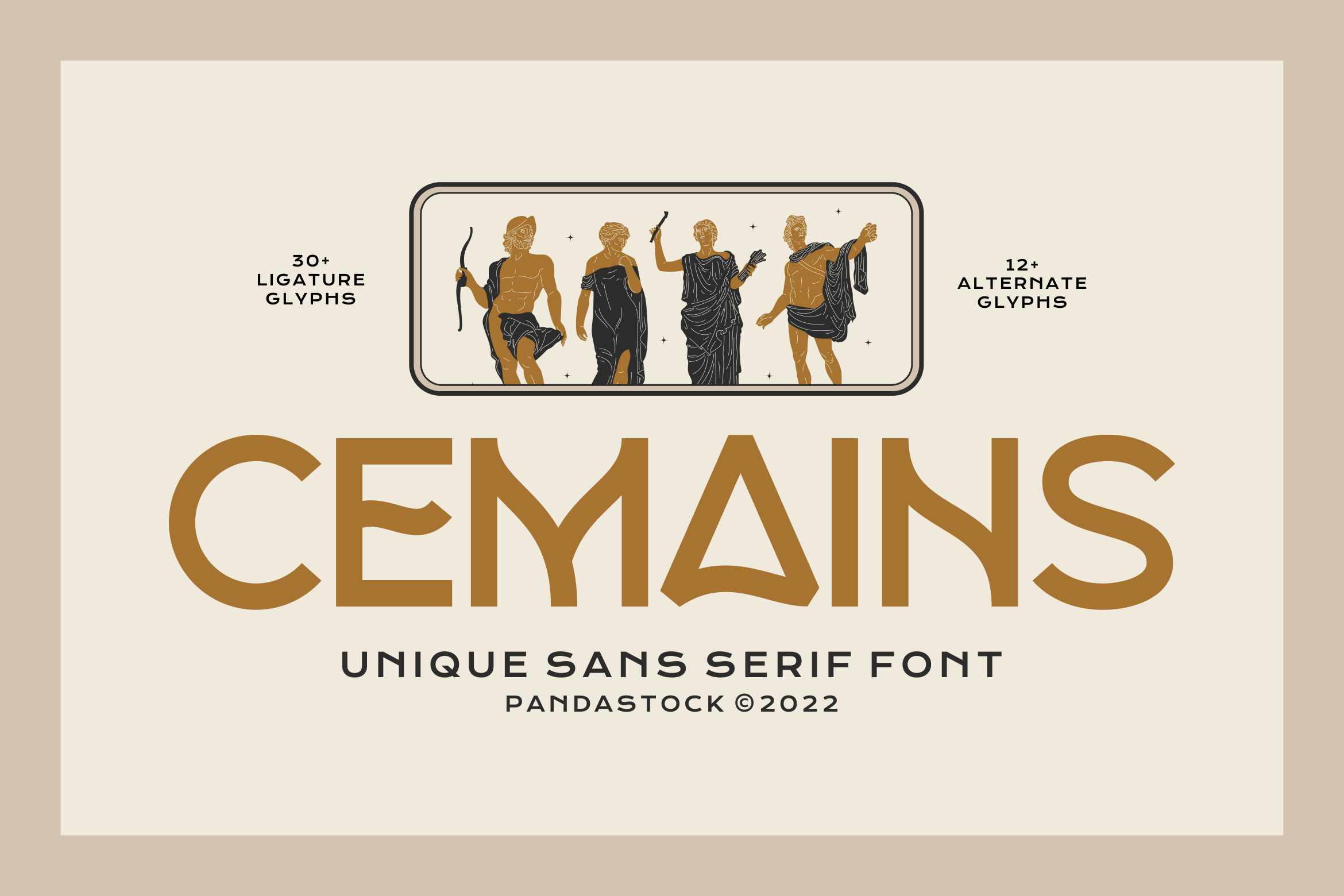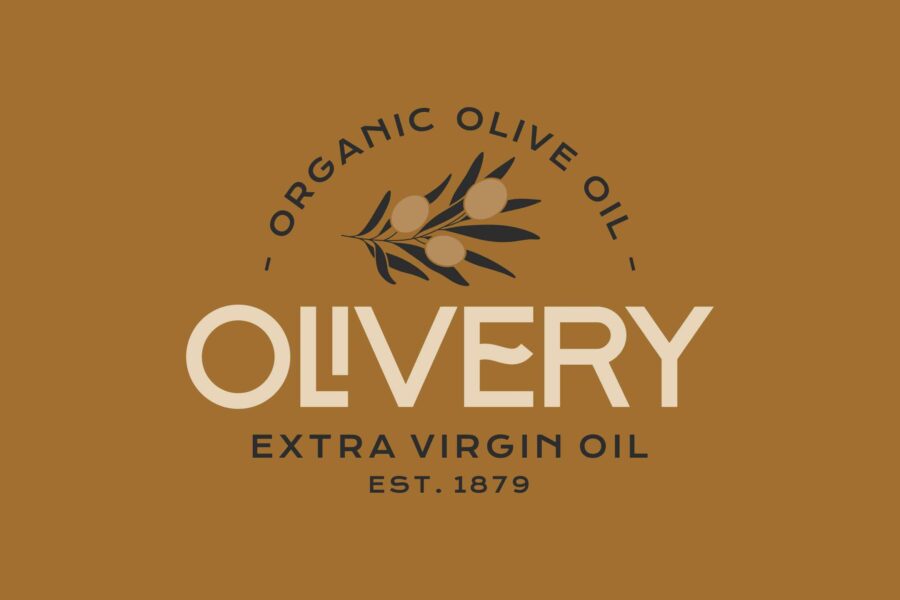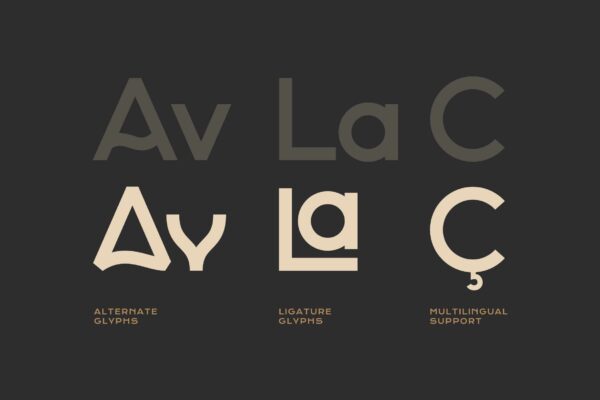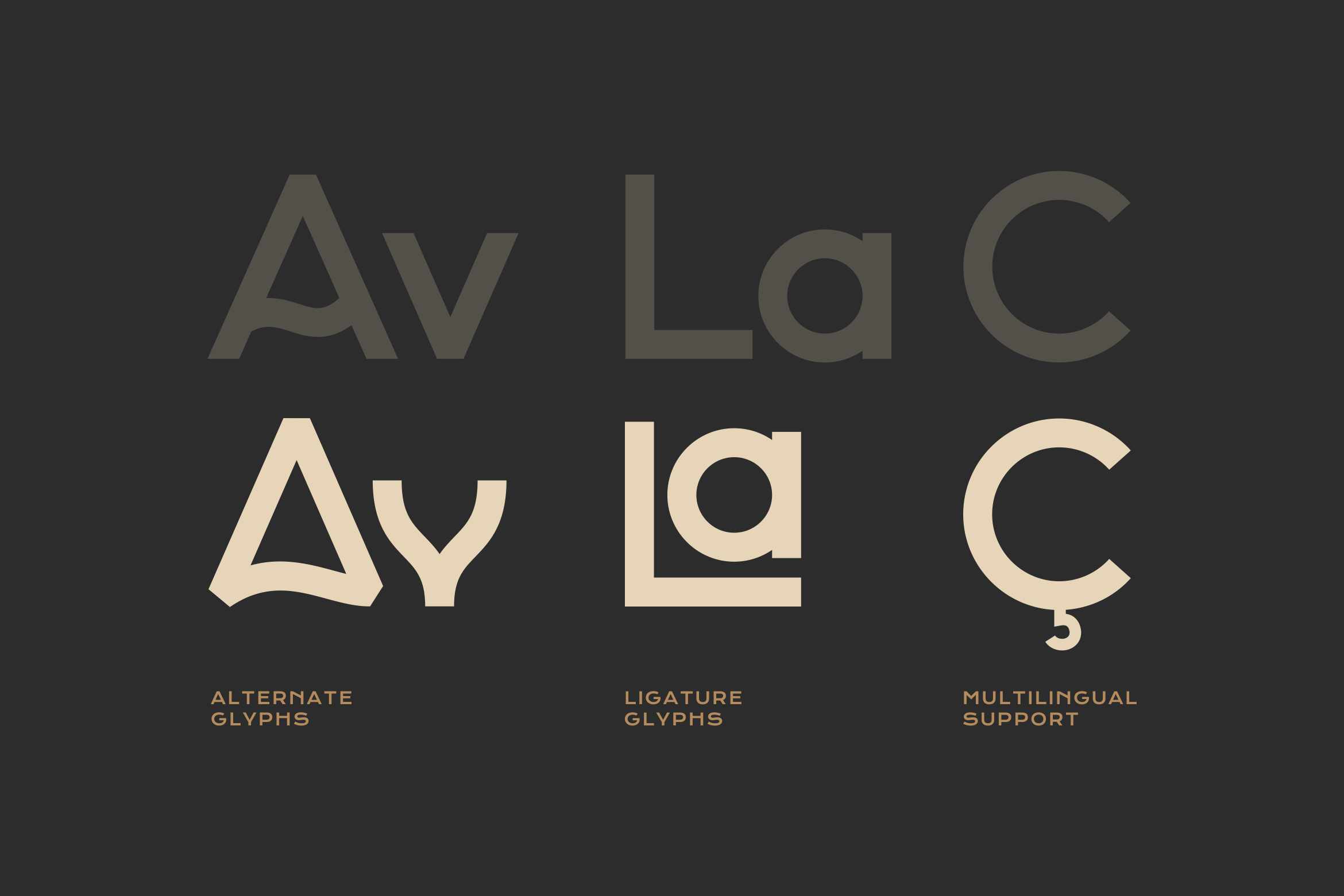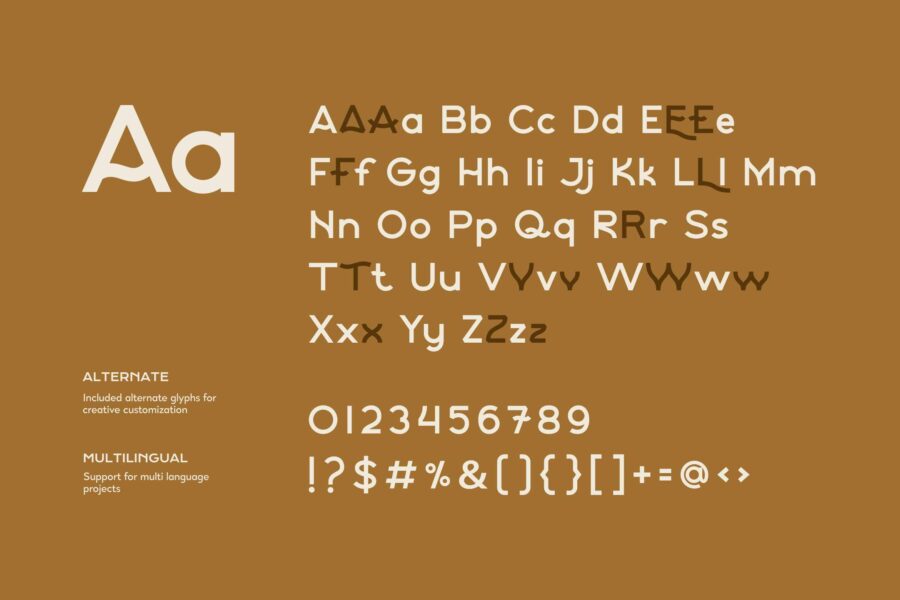
Cemains is a Unique Sans Serif Font that merges modern geometric style with a touch of classical elegance. Featuring more than 30 ligatures and 12+ alternate glyphs, this font gives designers the freedom to explore creative variations while maintaining clean readability. Its distinct character shapes make Cemains an excellent choice for logos, product labels, and sophisticated branding projects.
With its timeless balance of simplicity and artistry, Cemains works beautifully for wine packaging, editorial layouts, luxury product designs, and contemporary digital media. The font’s versatility allows it to adapt seamlessly across print and screen, giving every project a refined and professional look.
Cemains